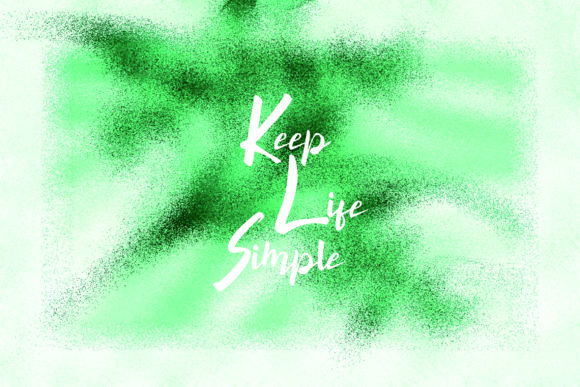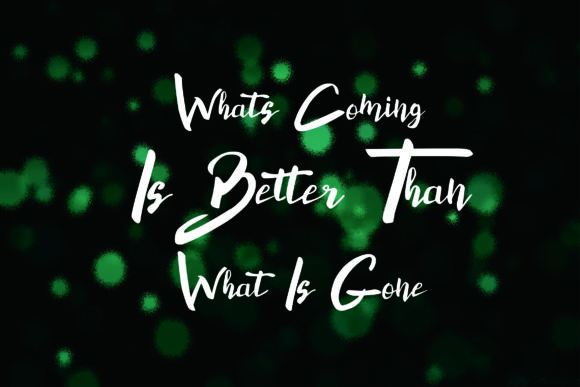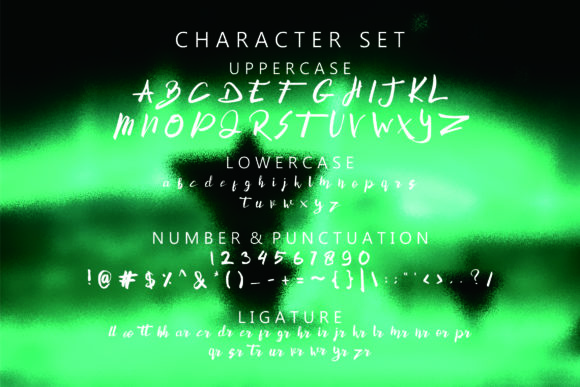
HomeScript FontsZenovia Font Script Fonts Zenovia Font FacebookXPinterestWhatsApp Zenovia Font Poster 2 Zenovia Font Poster 3 Zenovia Font Poster 4 About Zenovia Font Zenovia is a bold and cool script that will easily add a powerful vibe to your next design. DOWNLOAD NOW People also explored Windmill Font Moving Castle Font Deaisha Font Sweet Candy Font Supersoft Font Raspberry Sherbet Bone Font Font Welcome Summer Font Quirky 380 0 TagsZenovia Font Previous articleAtiledy Script FontNext articleDungeon Font LEAVE A REPLY Cancel reply Comment: Please enter your comment! Name:* Please enter your name here Email:* You have entered an incorrect email address! Please enter your email address here Website: Save my name, email, and website in this browser for the next time I comment. Personal Use Free Cherry Ai Personal Use Free Read more about this font Hagia Signal Personal Use Free Read more about this font Sweet Beautiful Personal Use Free Read more about this font Yukarimobile Personal Use Free Read more about this font BLOG Free Fonts Risk: Why Free Fonts Can Be Dangerous for Designers Free Fonts Risk: Why Free Fonts Can Be Dangerous for Designers Using free fonts is a common practice in web and graphic design. However, the... The 10 Best Handwriting Fonts to Add Personality to Your Designs 5 Fonts That Will Dominate Design Trends in 2026 Best Fonts for T-Shirt Design – Top 2025 Picks